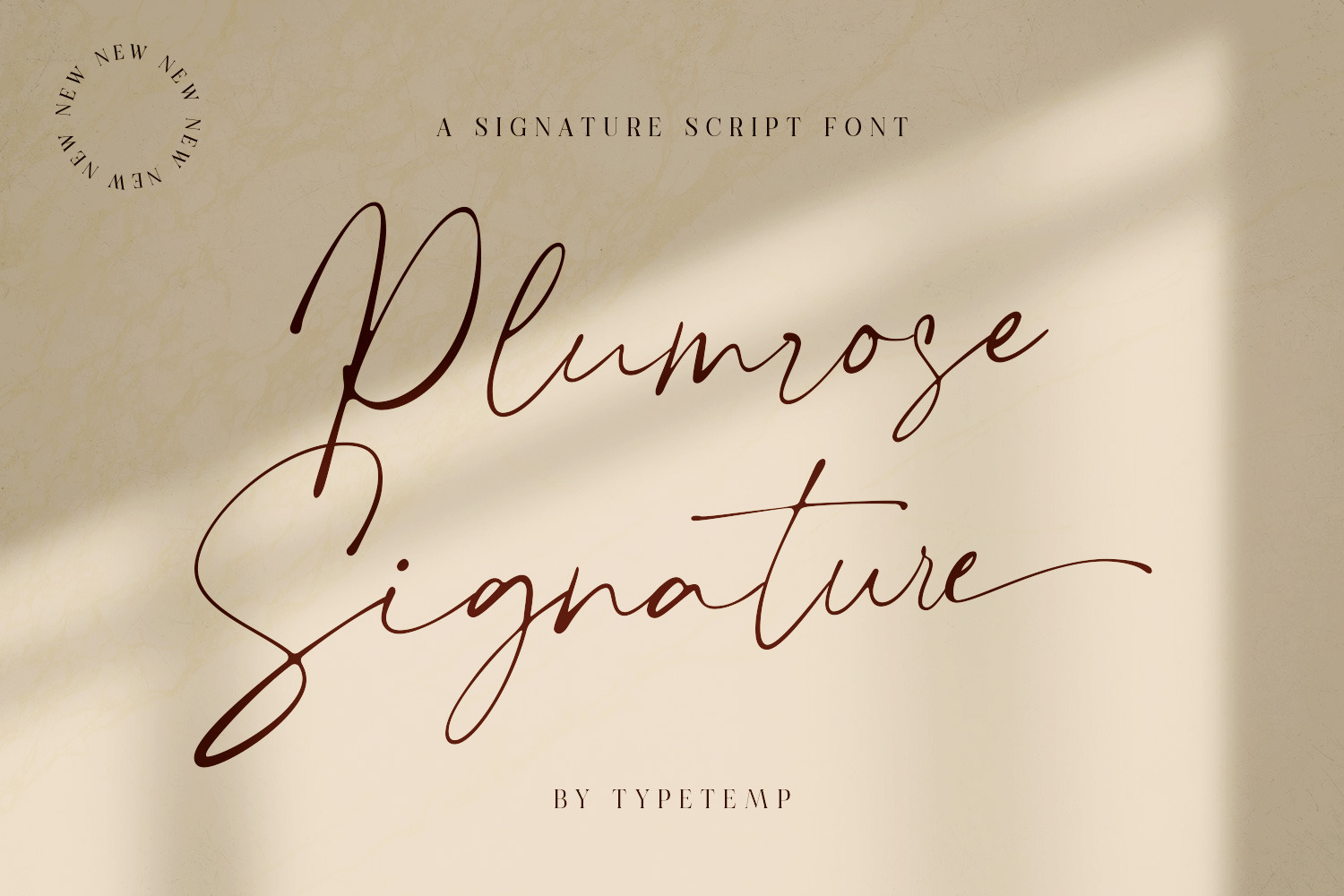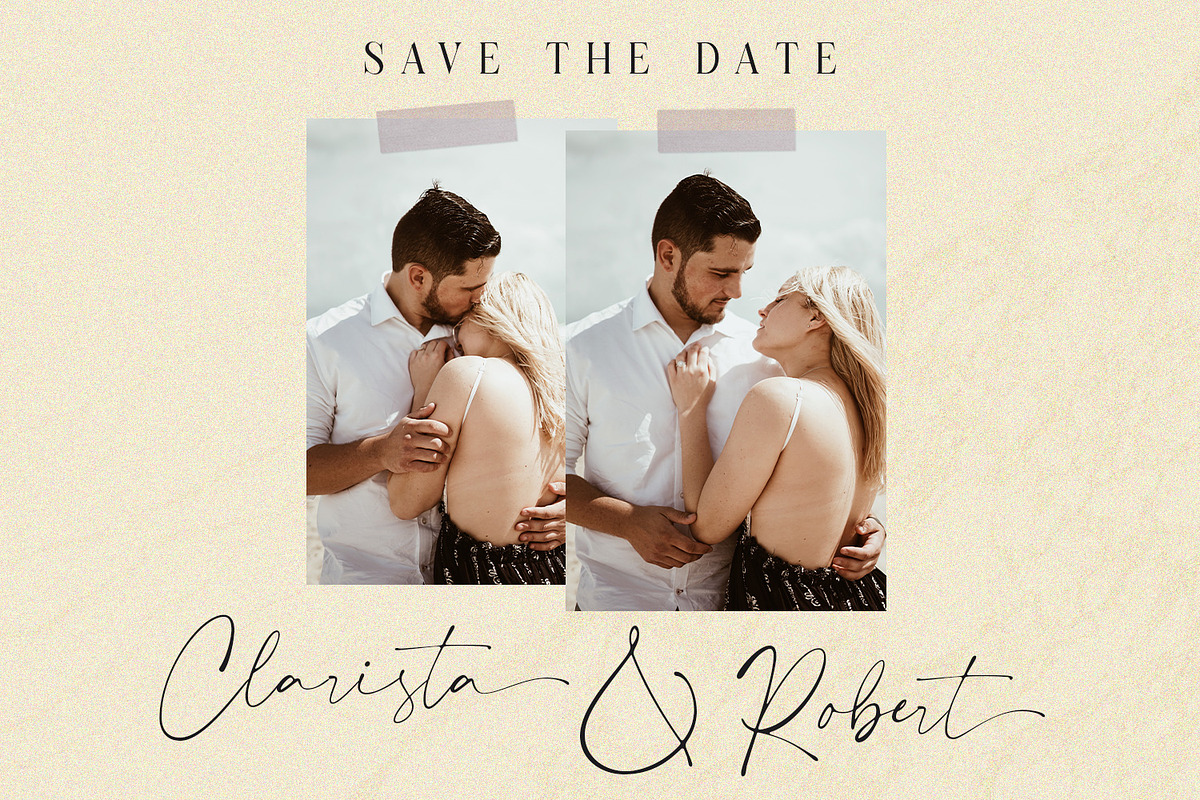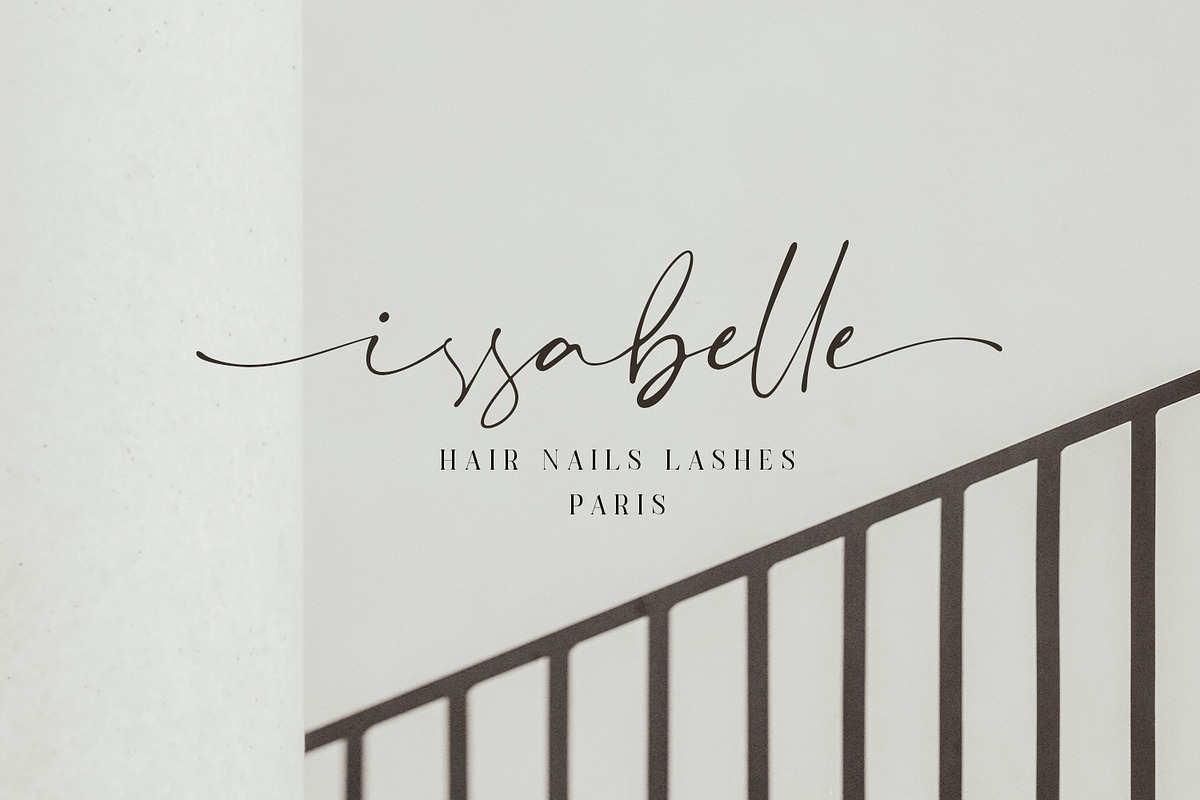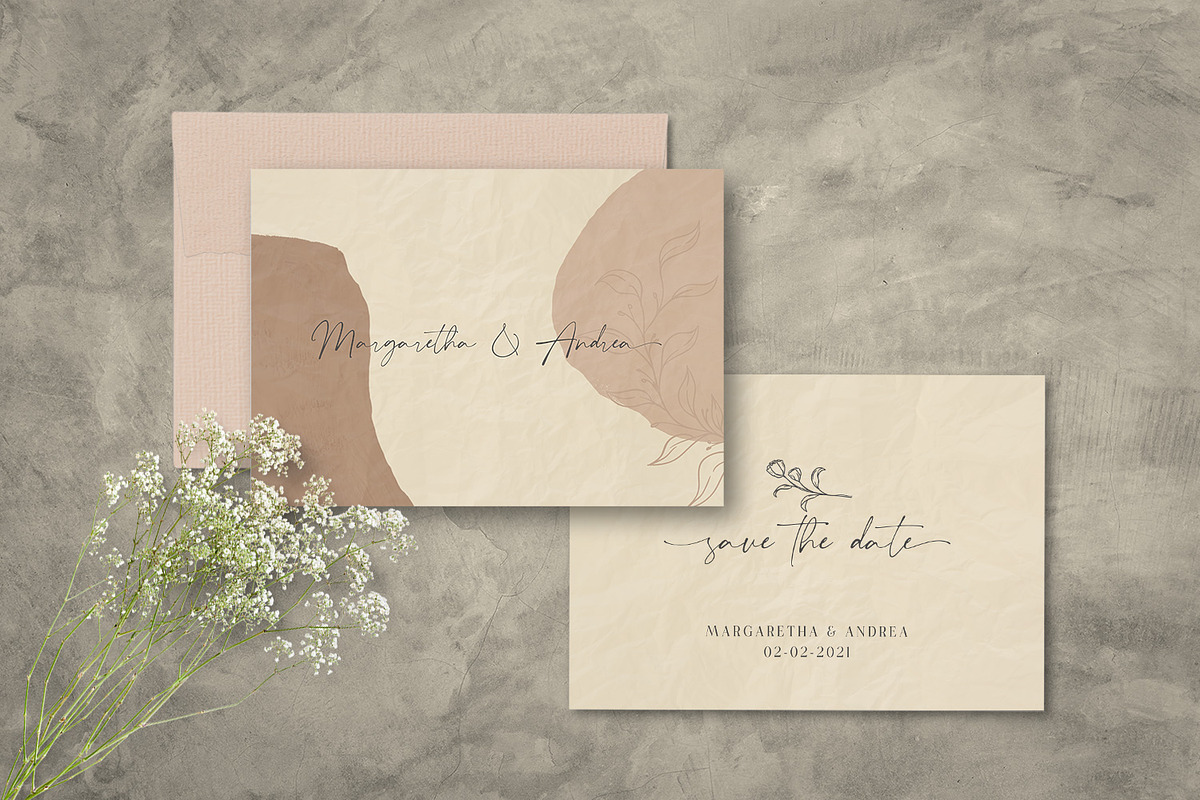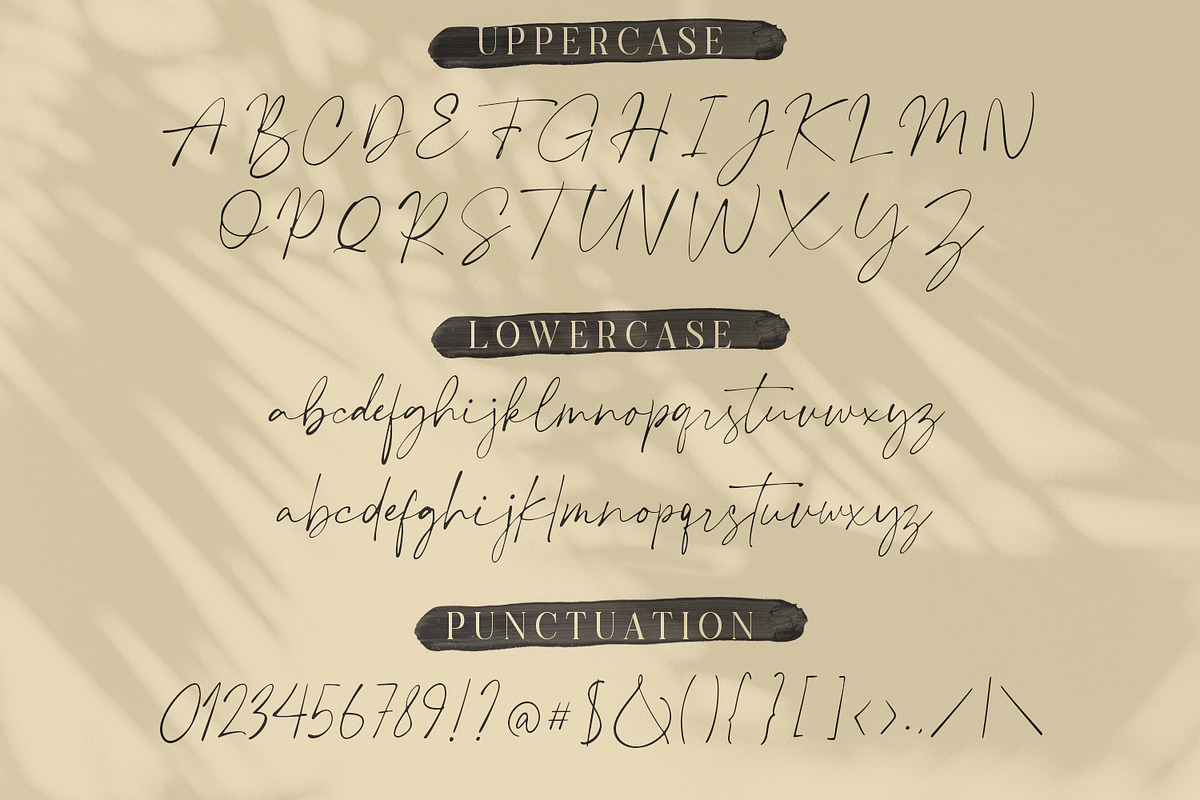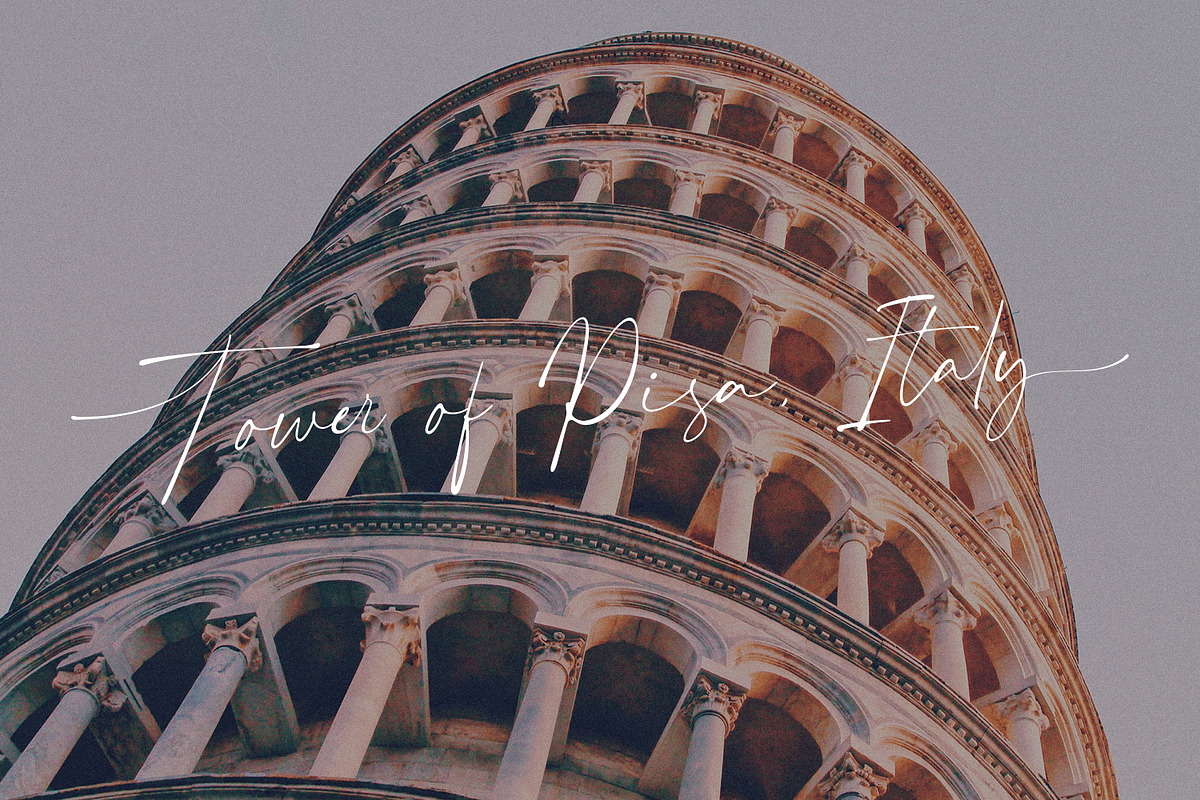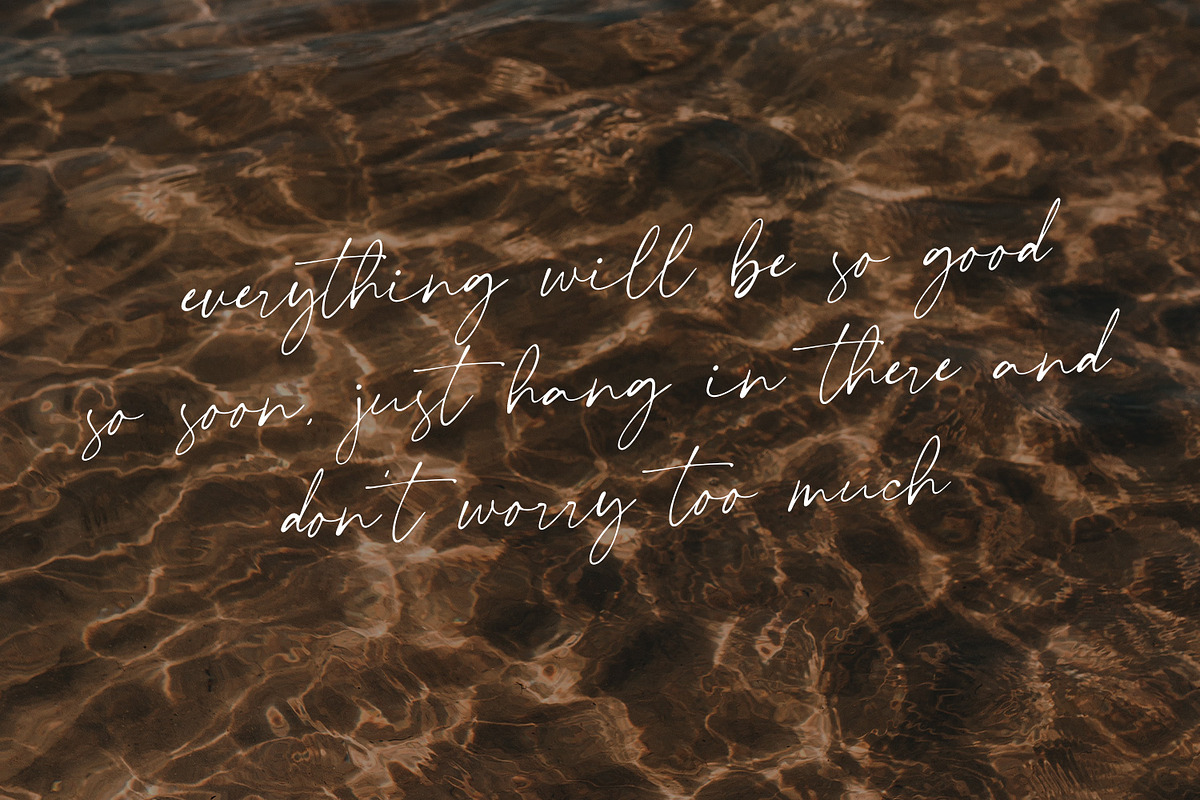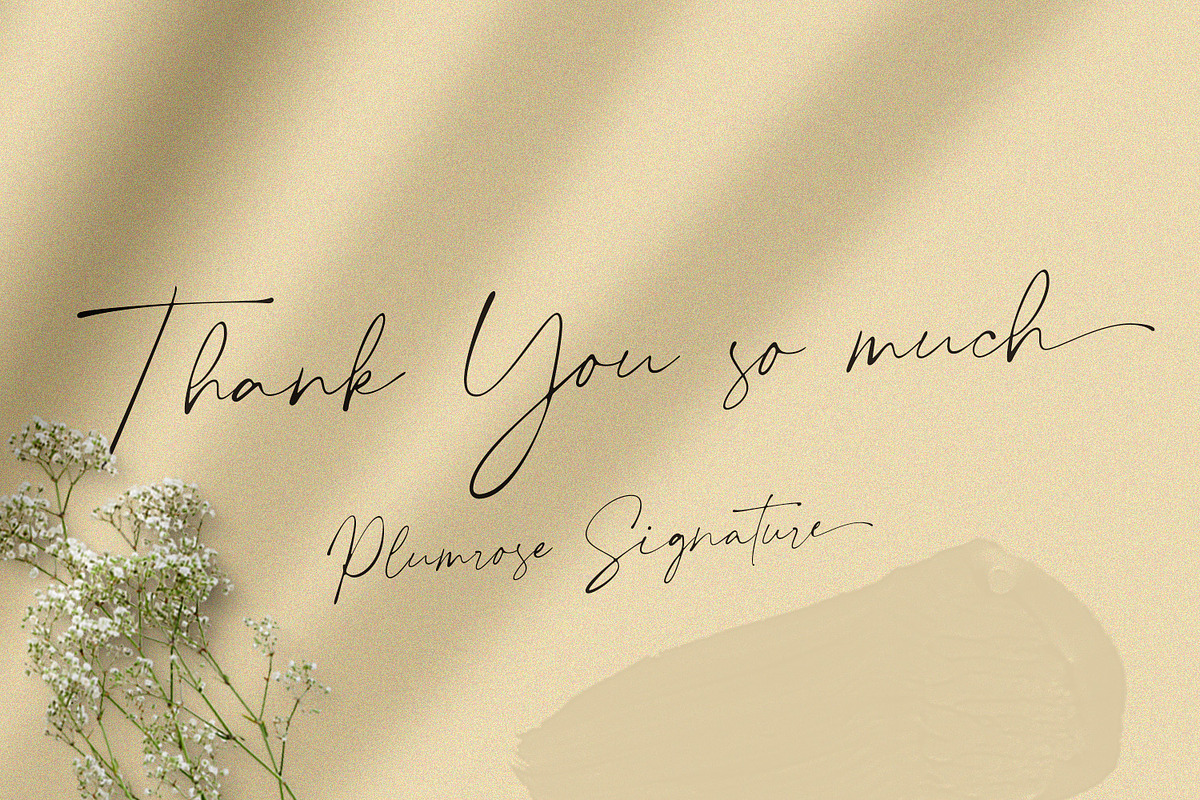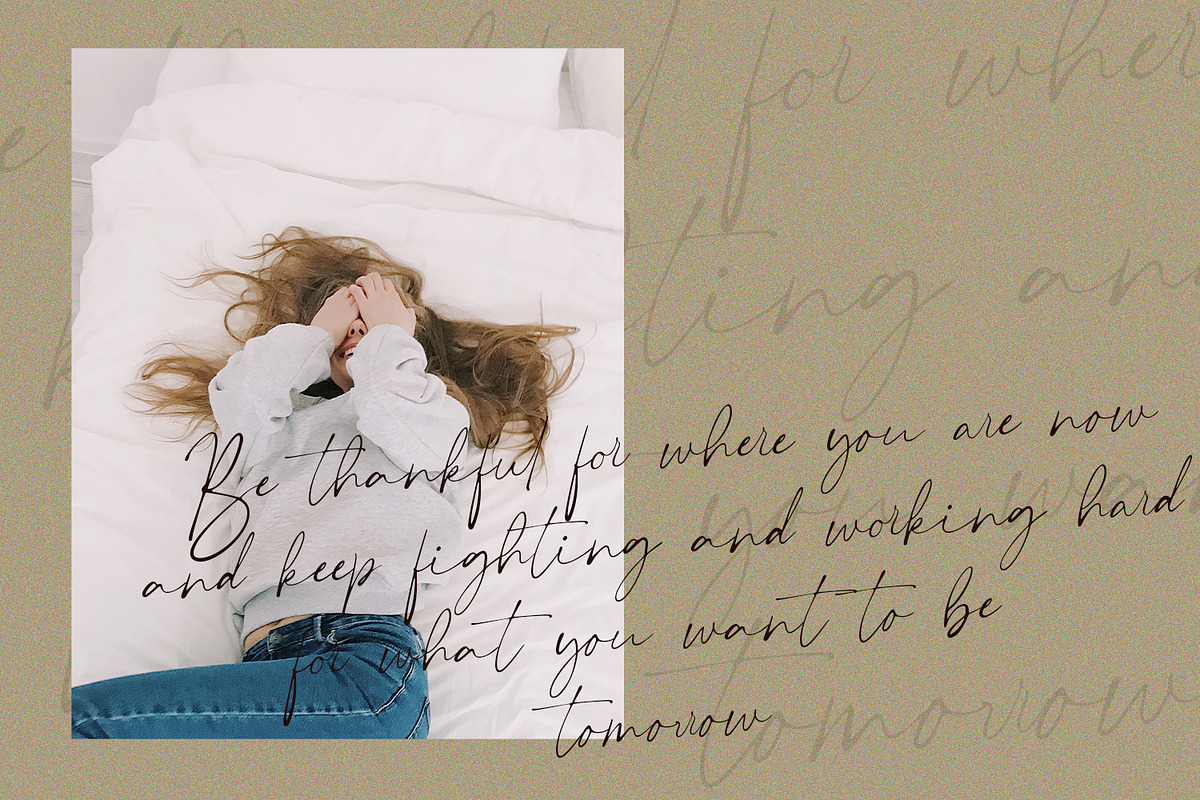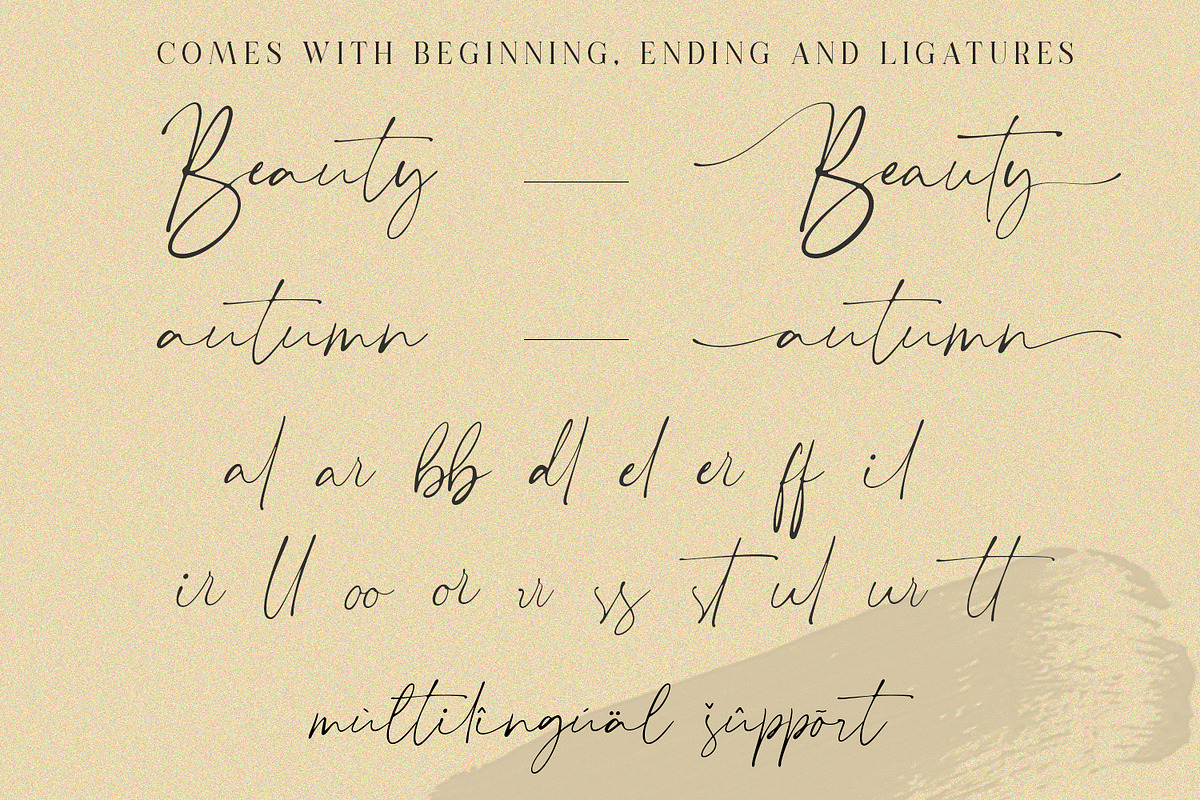
Plumrose Signature Script Font
Plumrose Signature Script Font is an adorable, chic, and visual elegance signature script font. Comes with alternatives, ligatures, multilingual suport. Perfect for editorial projects, branding, weddings, social media, product design, stationery, advertising other romantic projects or simply as a stylish text overlay to any background image.
- Stylistic Alternates & Ligatures
- Multilanguange